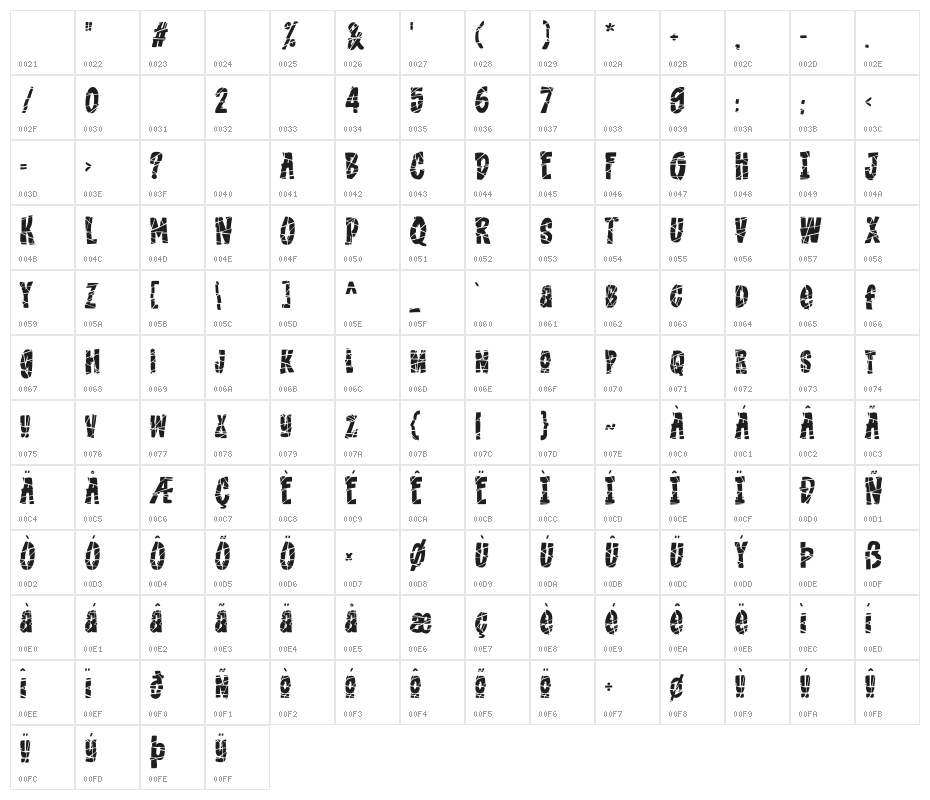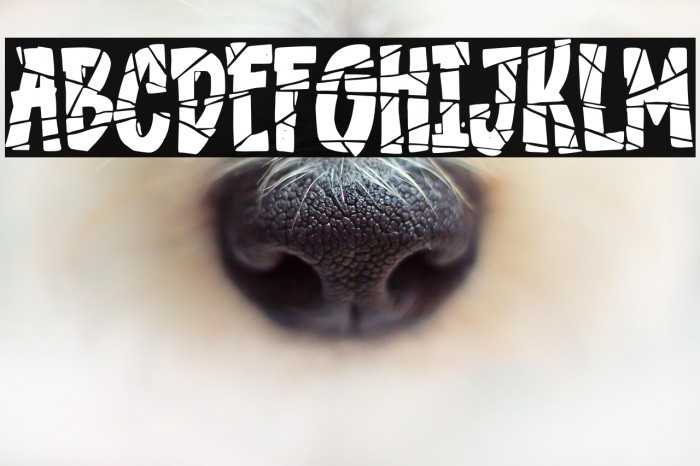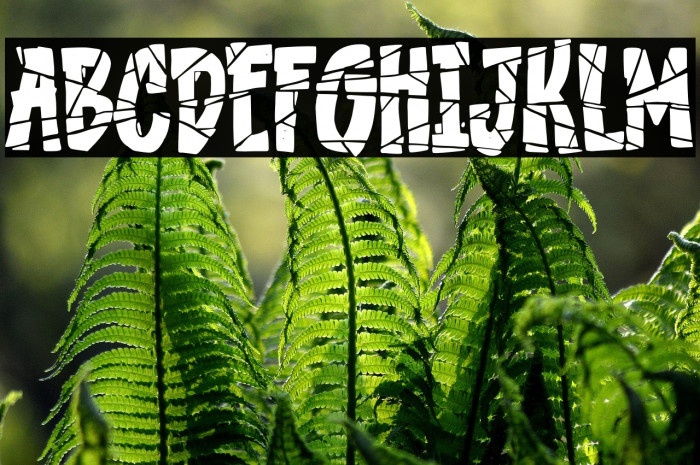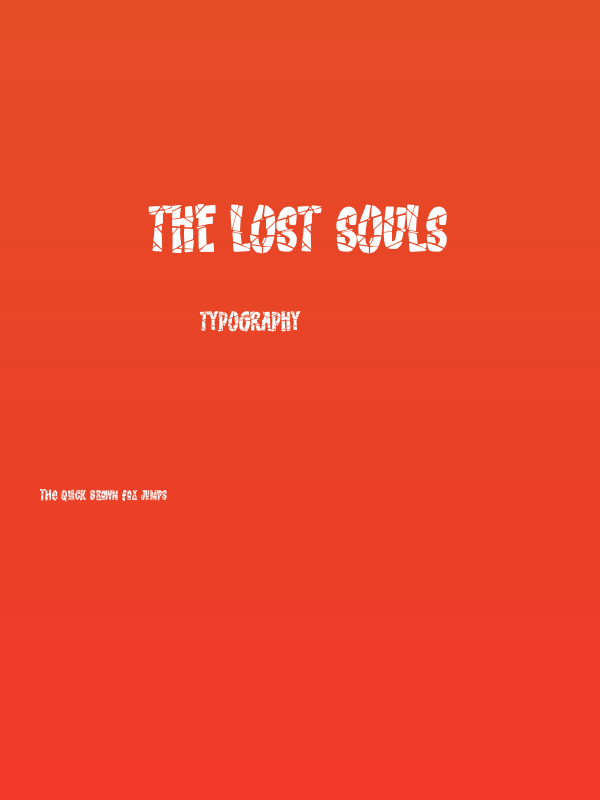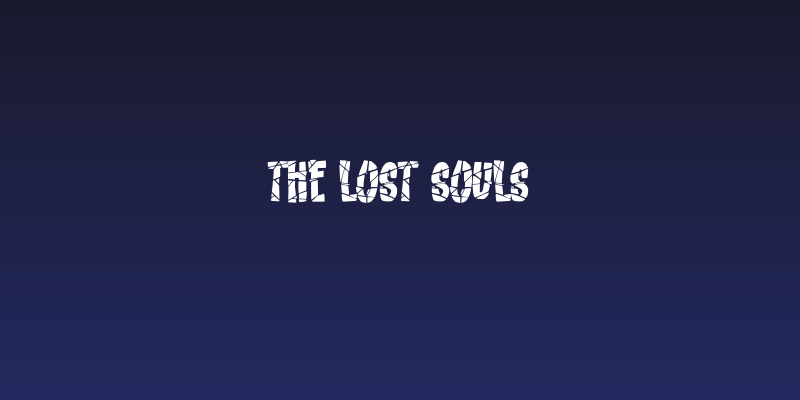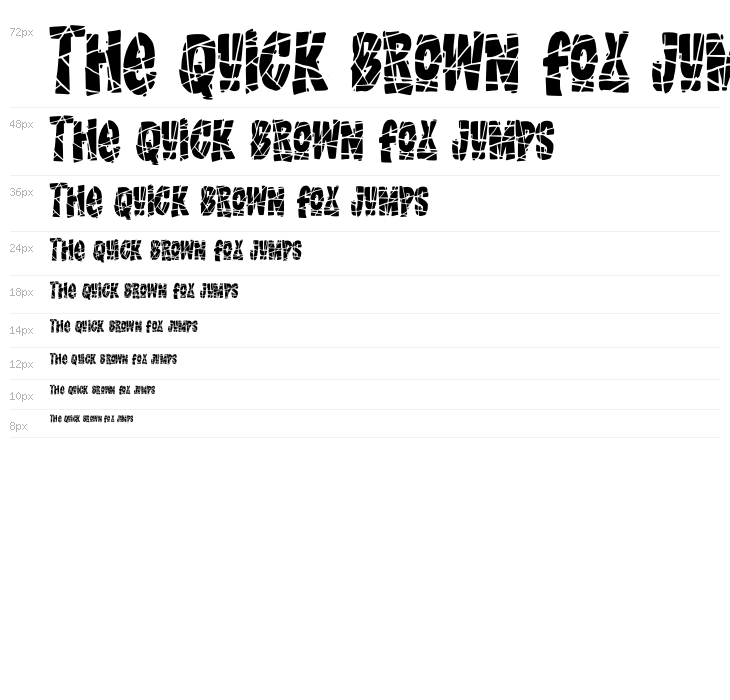
the Lost Souls Font
the Lost Souls Description
This font features a bold and fragmented design, with each character appearing as if it's been shattered into pieces. The jagged edges and irregular shapes give it a chaotic and distressed look, making it stand out as a unique and eye-catching typeface. The uppercase and lowercase letters maintain a consistent style, with numbers and special characters following the same fragmented theme. This font is ideal for projects that require a dramatic and edgy appearance, such as horror-themed designs or rebellious branding.
Proposed ProjectsIdeal for horror-themed designs, rebellious branding, album covers, and edgy posters.